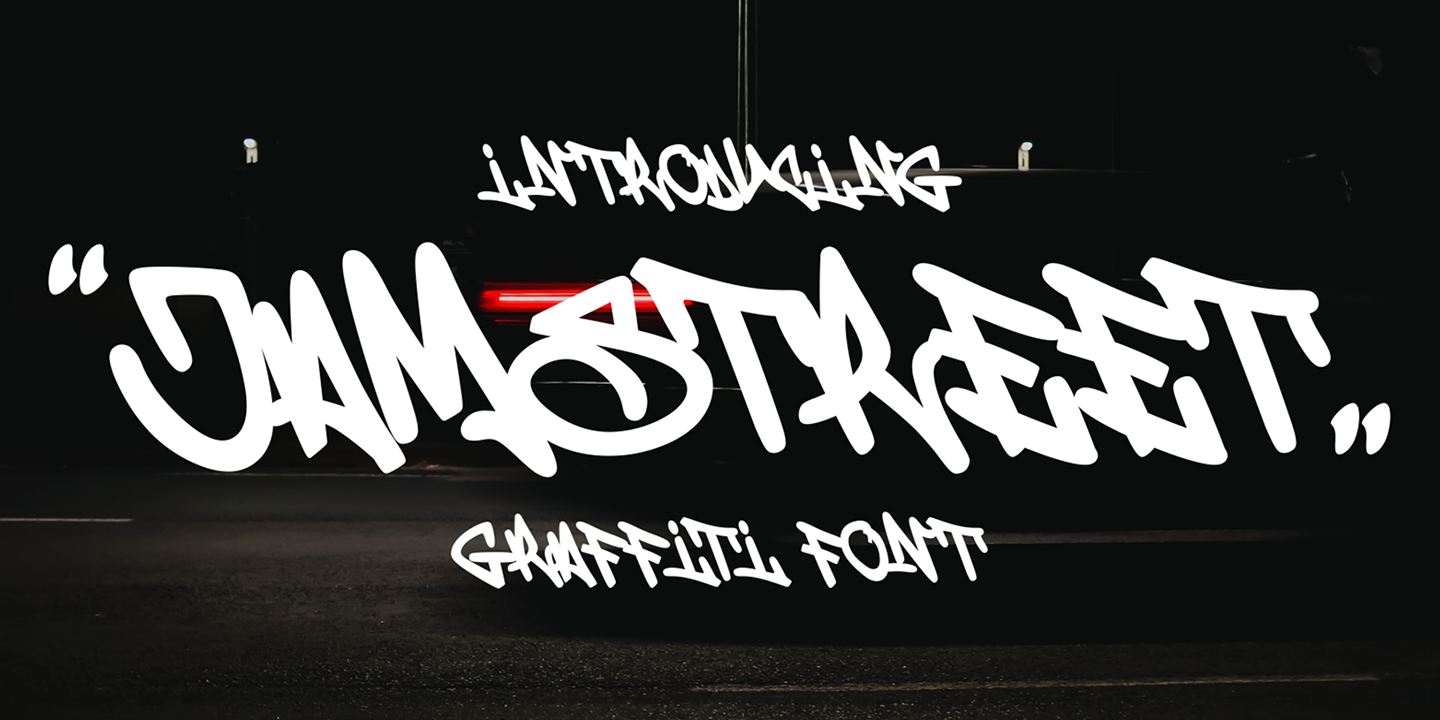
Jamstreet Graffiti Font Free Download – Bold and Urban Typeface for Street-Style Designs
Want to inject some raw urban energy and bold attitude into your design projects? Jamstreet Graffiti Font Free Download is the perfect choice. This edgy, hand-drawn graffiti style font captures the spirit of the streets with its dynamic lines and rebellious flair, ideal for posters, logos, apparel, and social media graphics.
Jamstreet Graffiti brings a sense of movement and personality to your typography, making your designs stand out with a unique street-culture vibe. Whether you’re creating urban branding or eye-catching headlines, this font delivers authentic street art style.
Give your projects a bold urban edge with Jamstreet Graffiti — a font that shouts creativity and attitude.